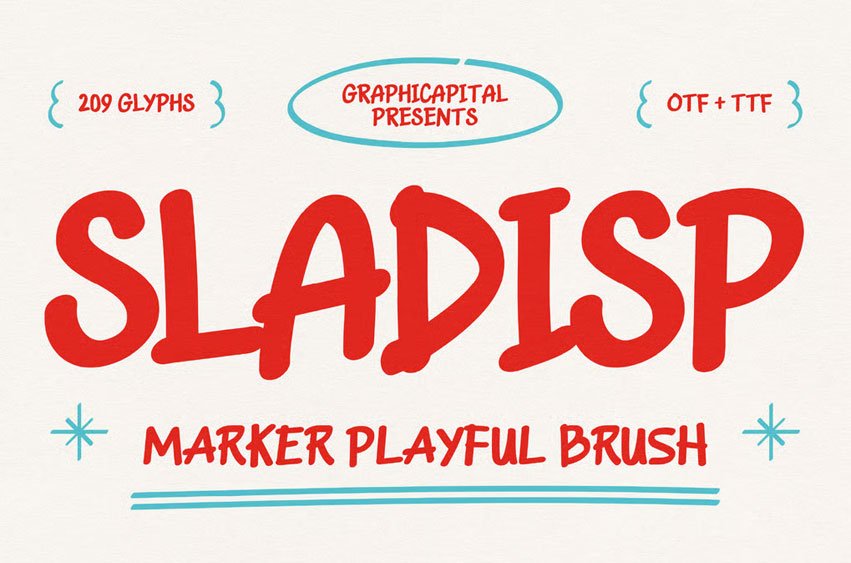
Sladisp Font is a playful marker brush-style font with thick, organic strokes that create a lively and spontaneous feel.
Ideal for cheerful, relaxed, and energetic design projects that want to exude fun and creativity.
Ideal for branding, posters, headlines, packaging, album art, game visuals, and promotional designs. It adds personality to any creative project and helps your message stand out effortlessly.